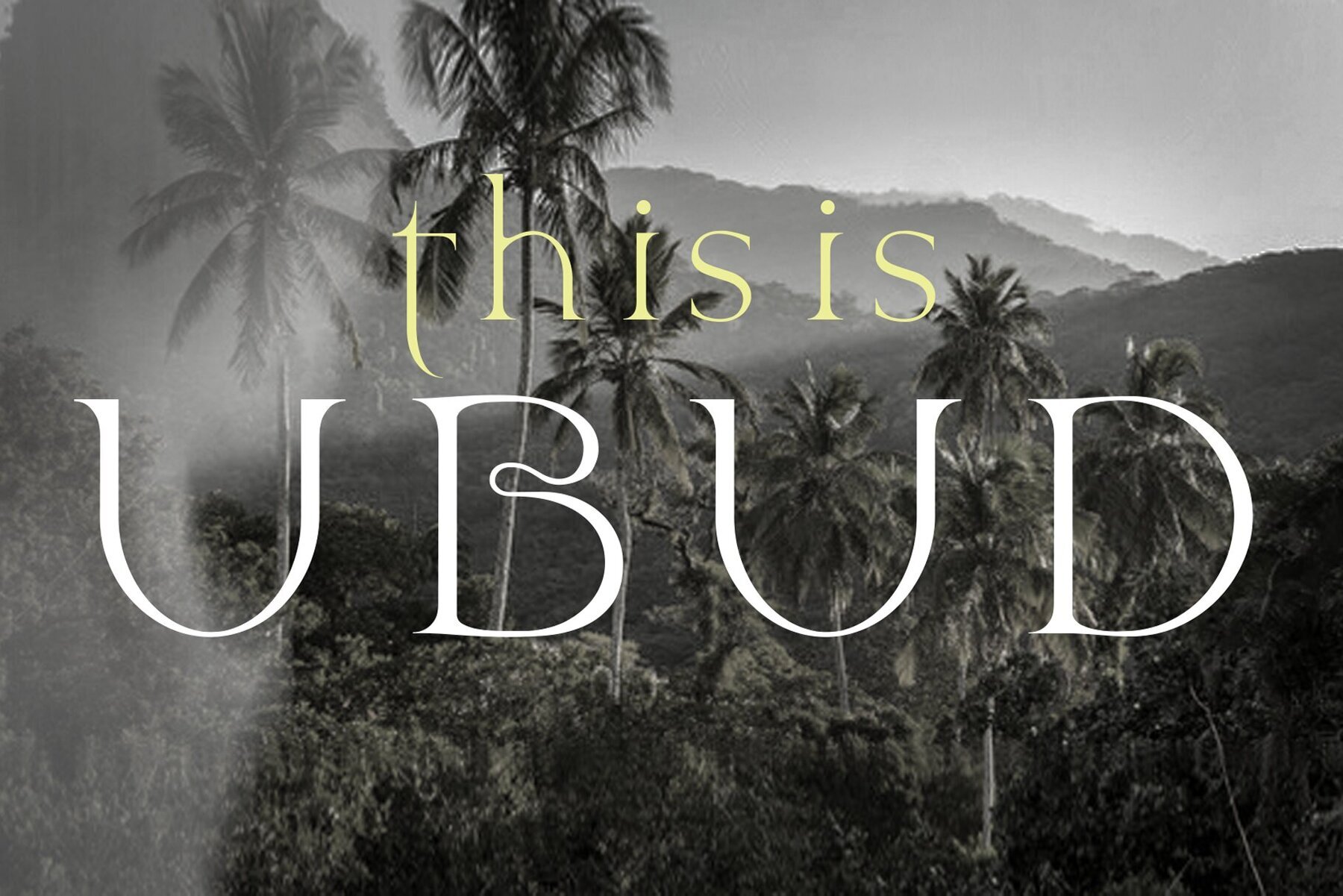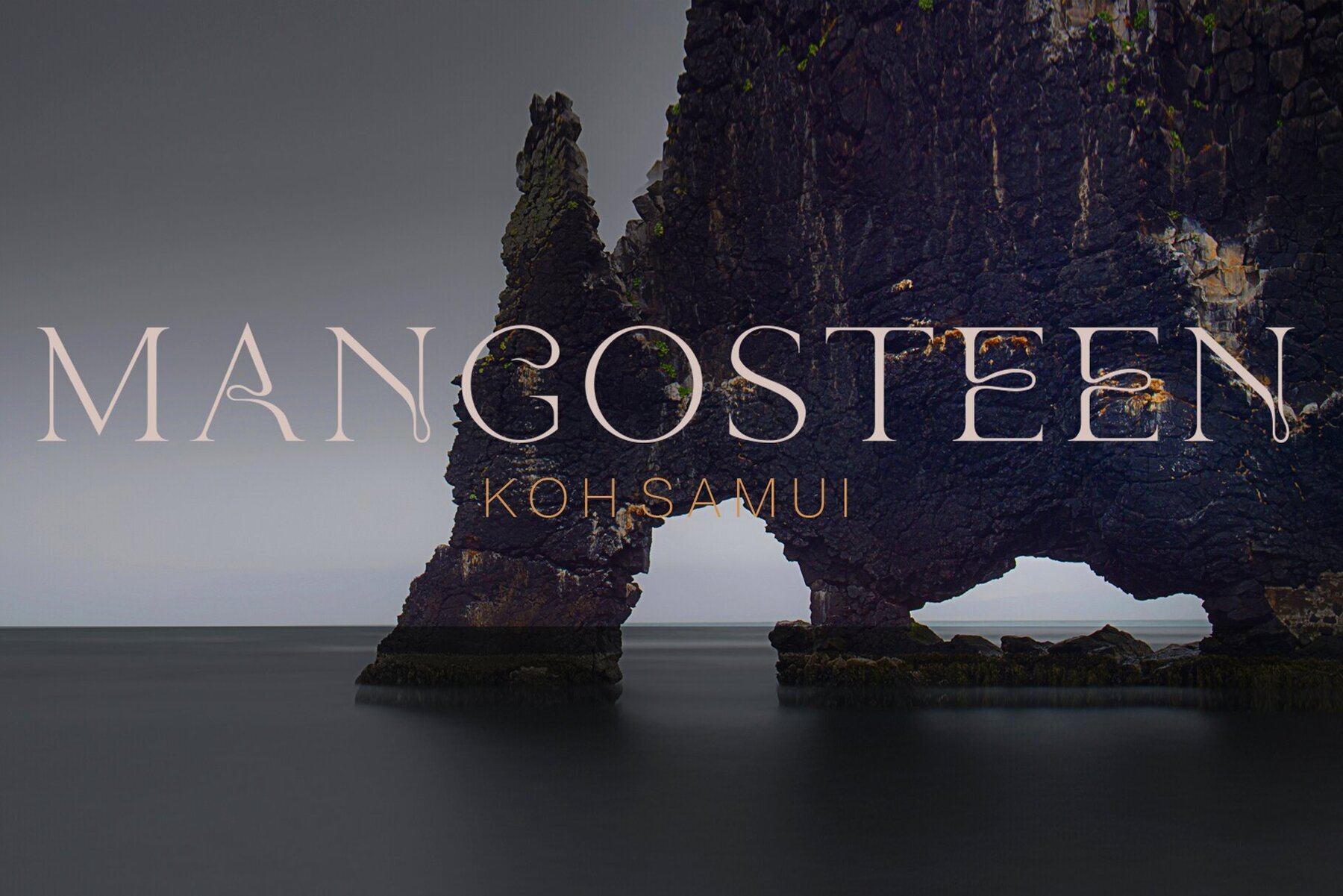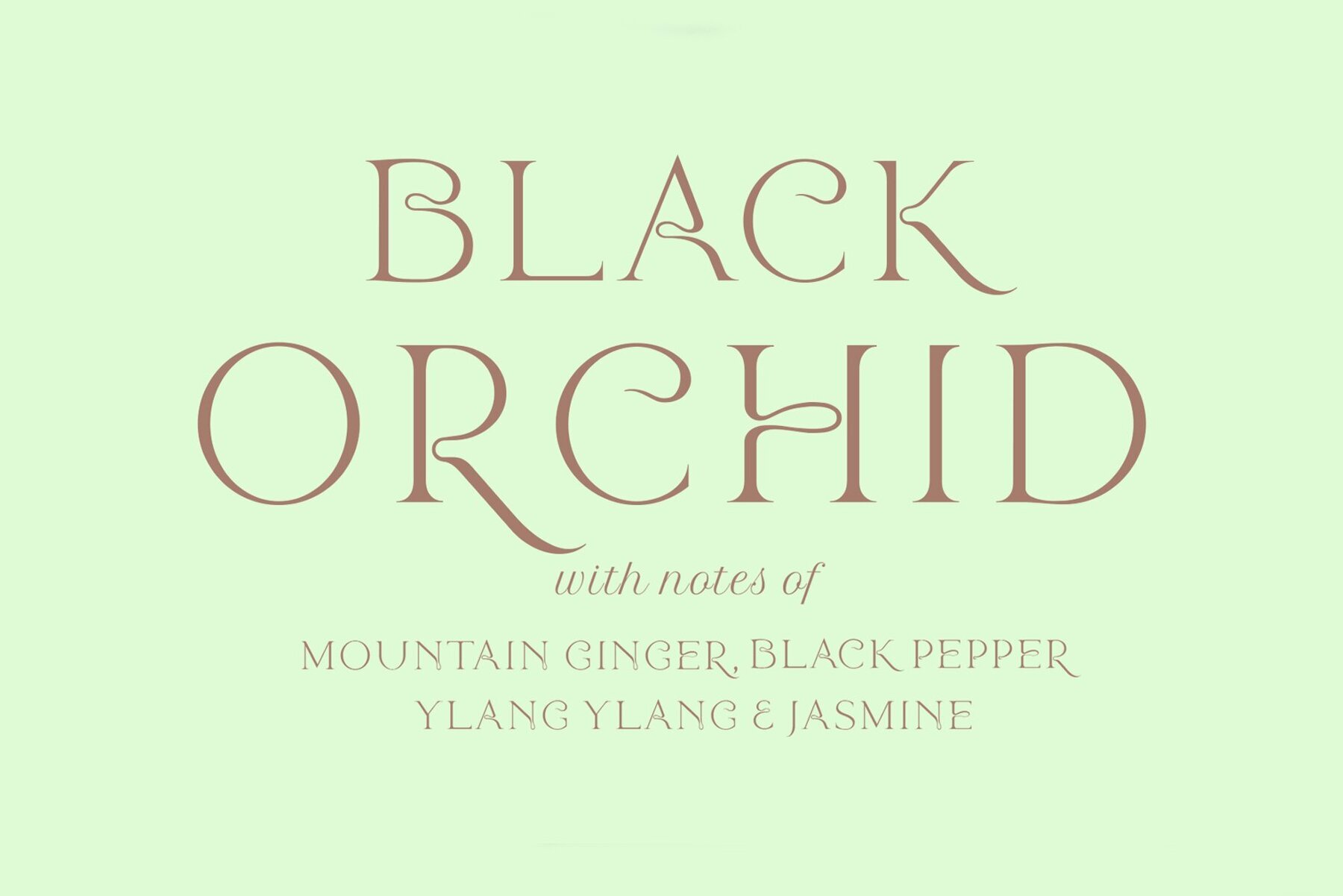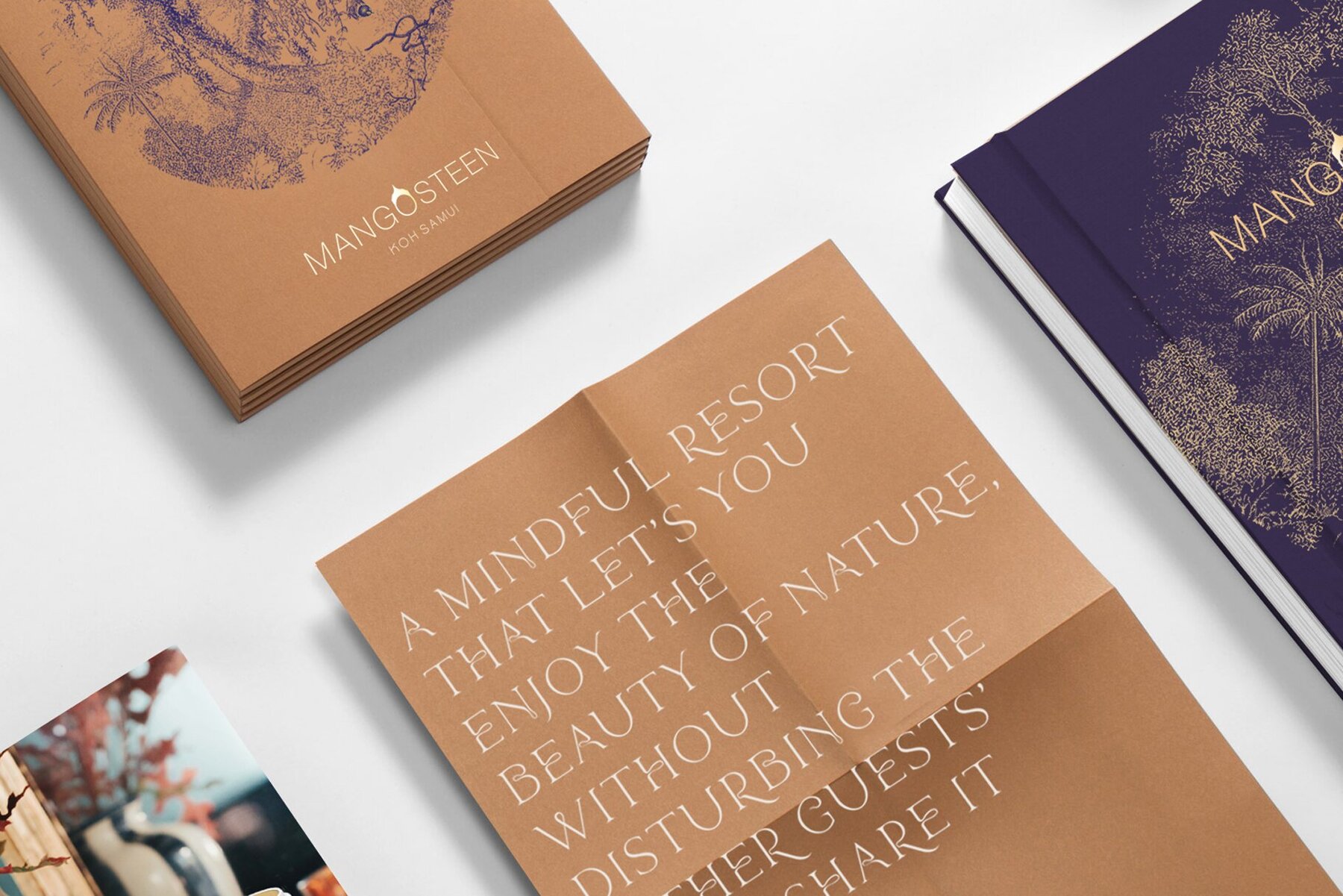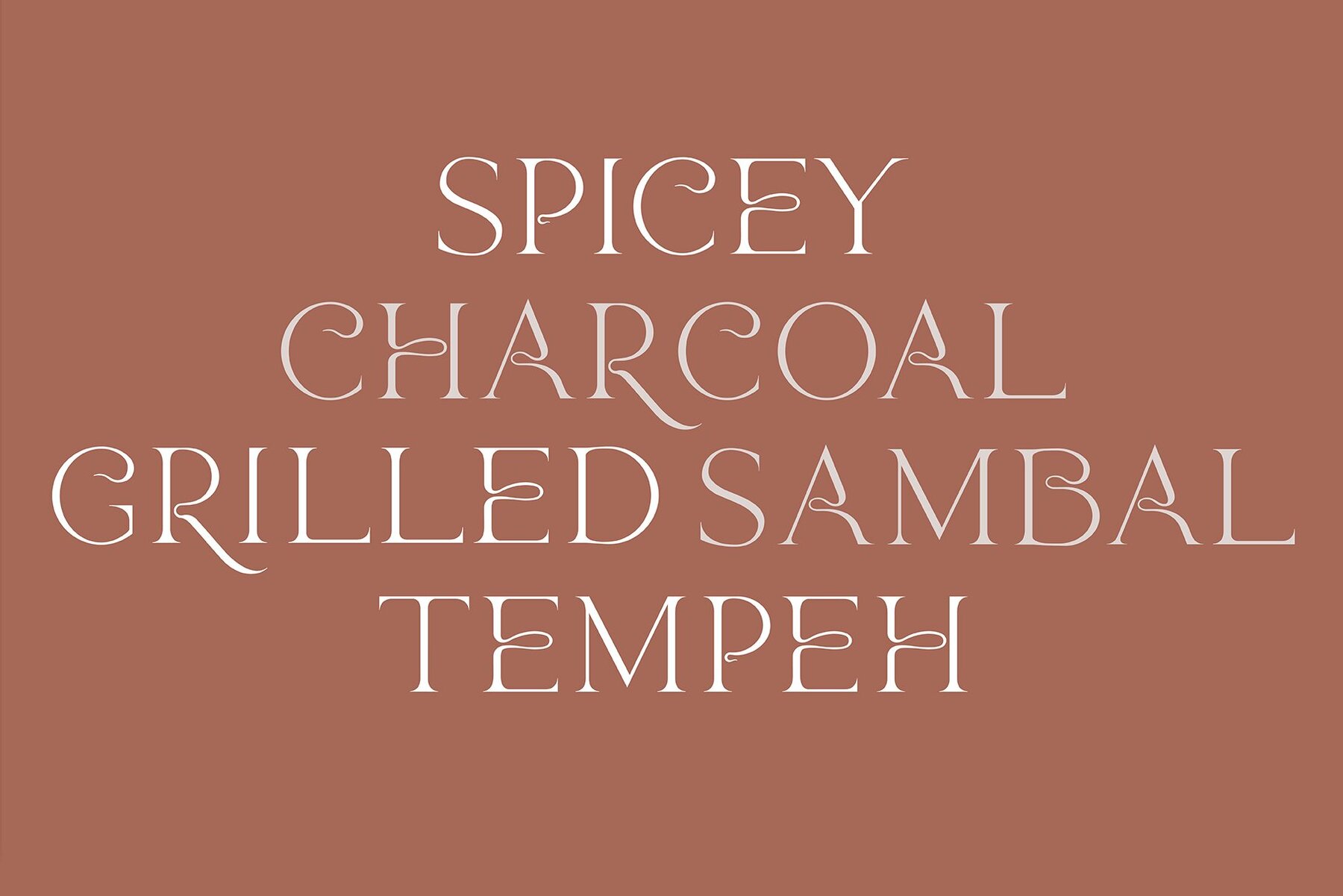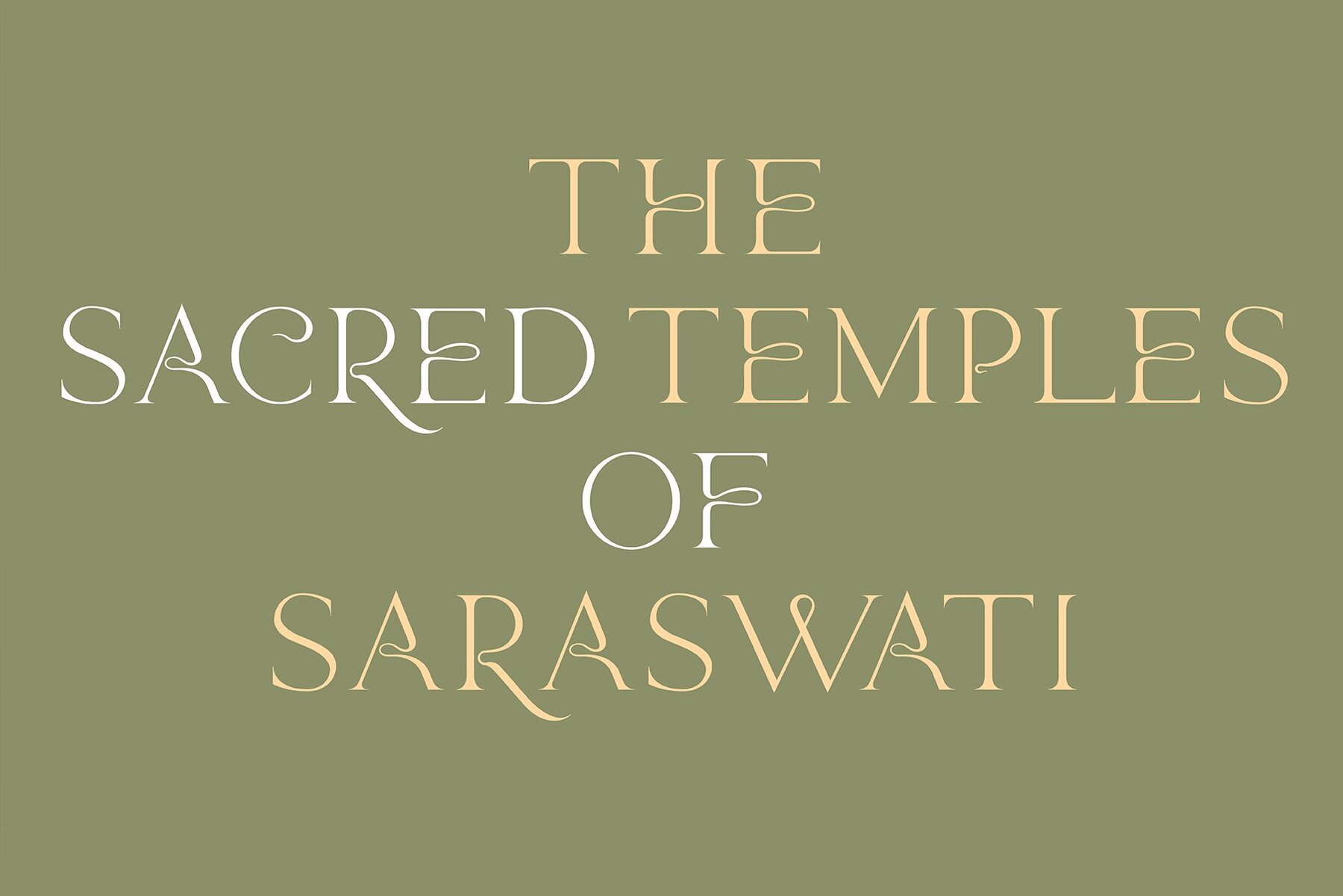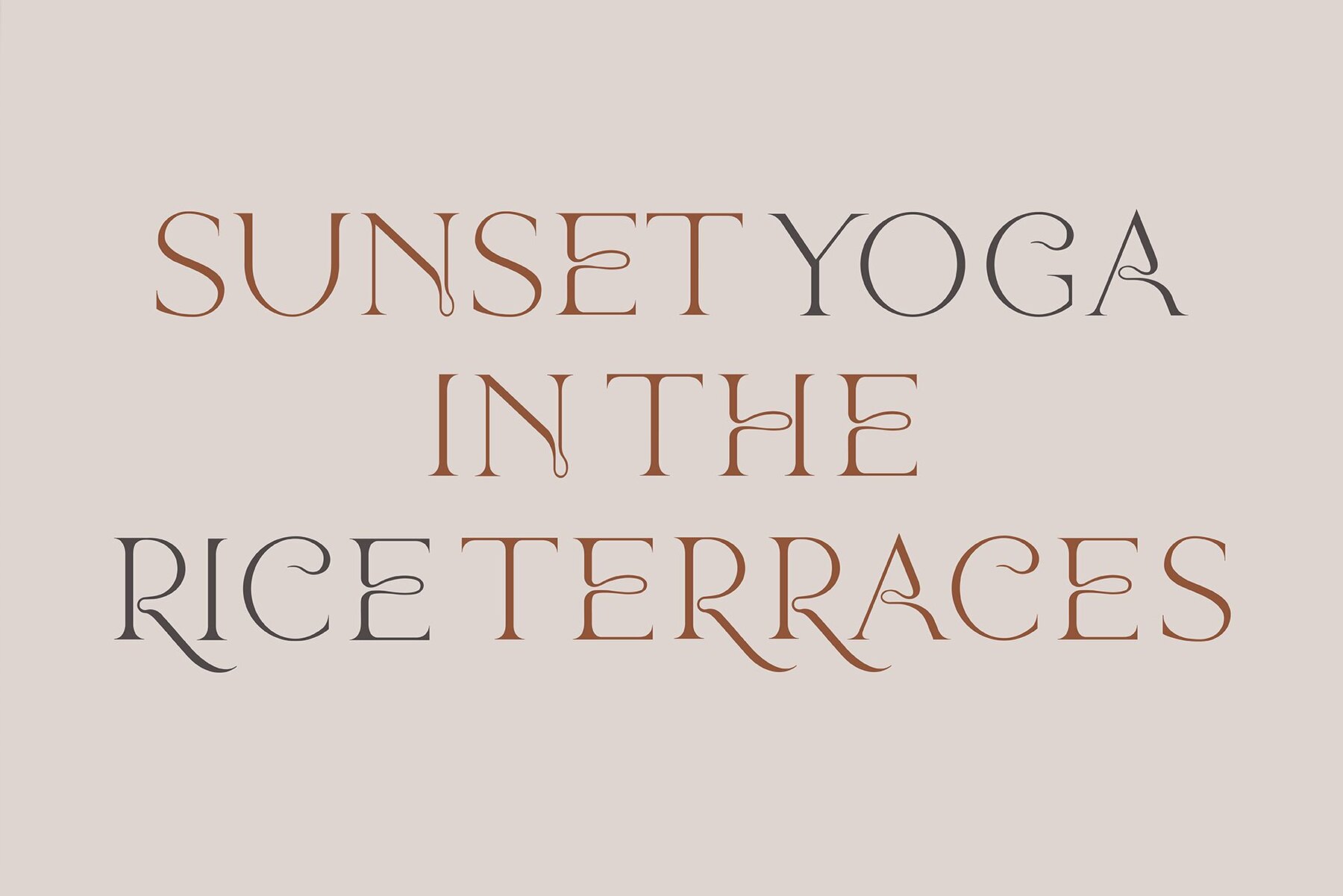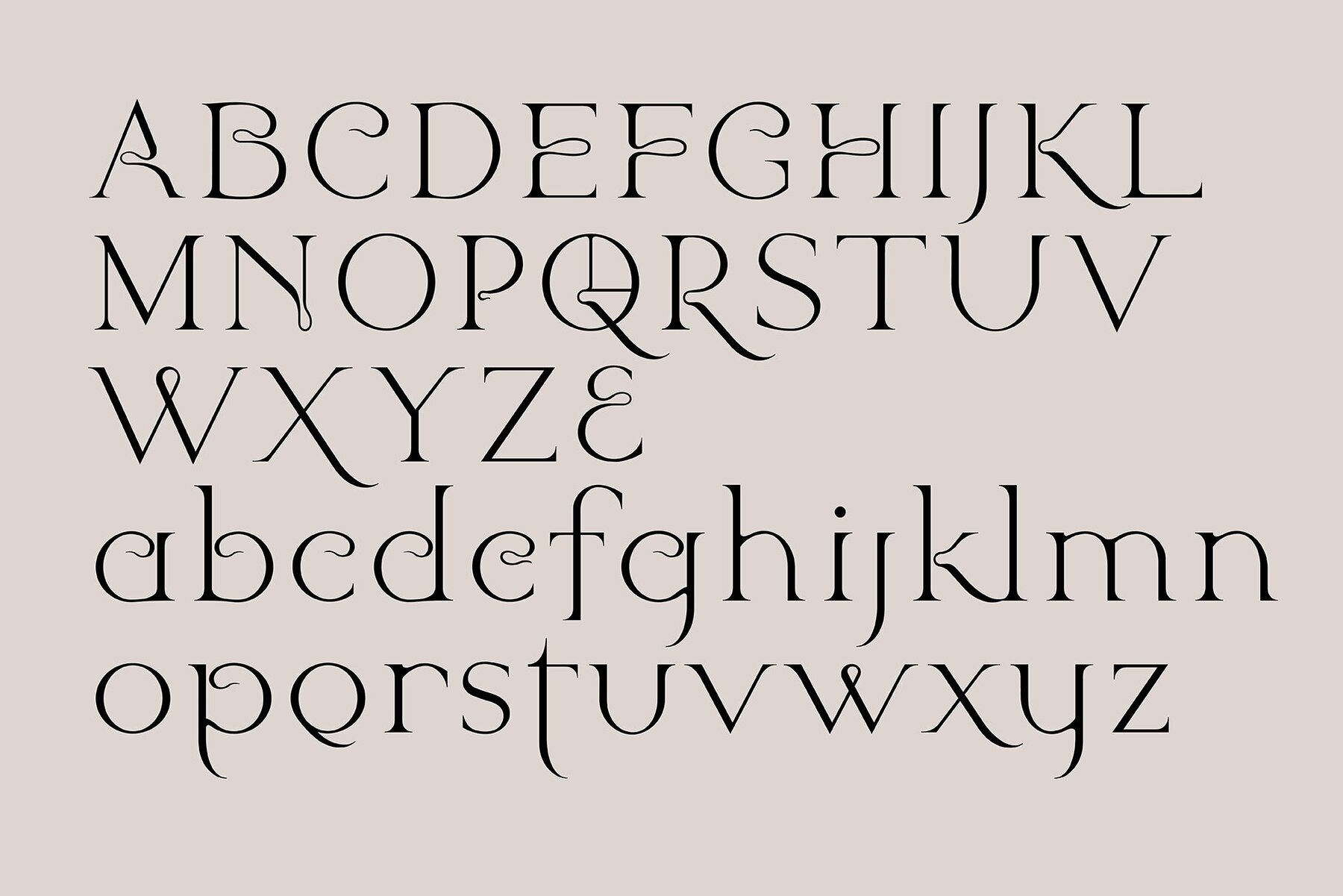
Ubud Font
Ubud is a beautifully expressive new font for designers from LostandFoundry. This 'contemporary' serif font was inspired by the rich Balinese culture and references the intricate stone carvings on their temples. Ubud will give your work as unique an identity as the Balinese culture. Ubud is a full Latin alphabet font and supports French, German and some Scandinavian languages. Ubud will look stunning on your print and online projects, in headlines, titles, on your vlogs, blogs, websites and on social media posts.